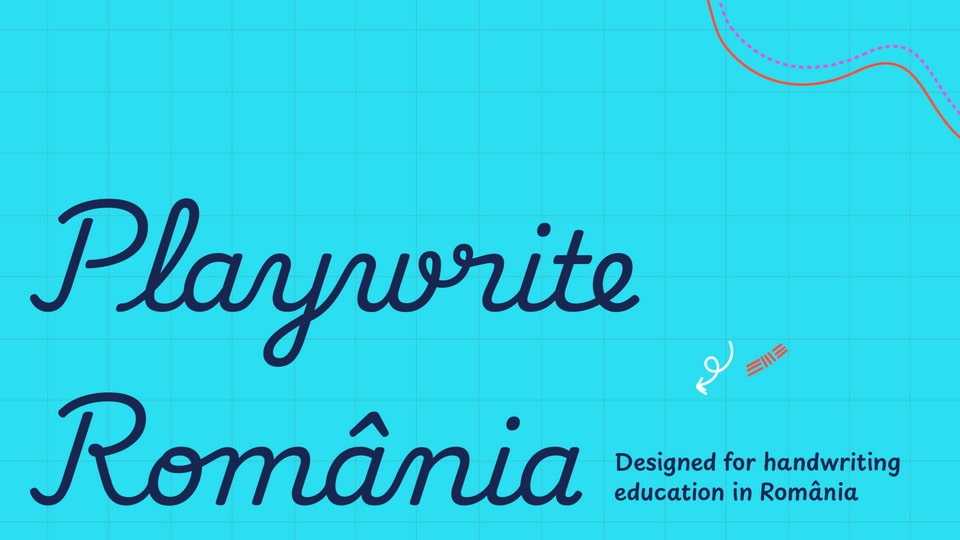
Playwrite România font, a typeface that allows the creation of primary school cursive fonts. This slanted continuous cursive features a slow stroke speed and medium-length, looped ascenders and descenders.
Designer: TypeTogether